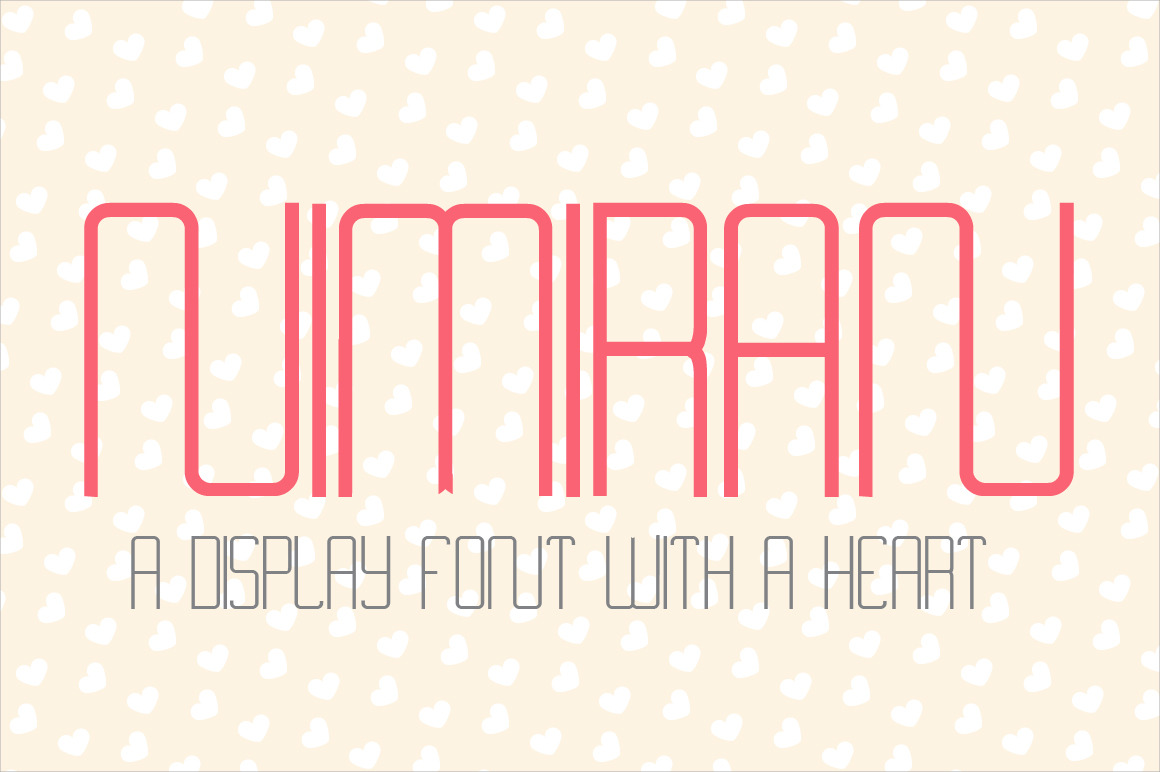
Nimiran Typeface
Nimiran is a display font with a heart. Every single glyph had designed with love. This typeface comes with uppercase, numerals and some symbols.